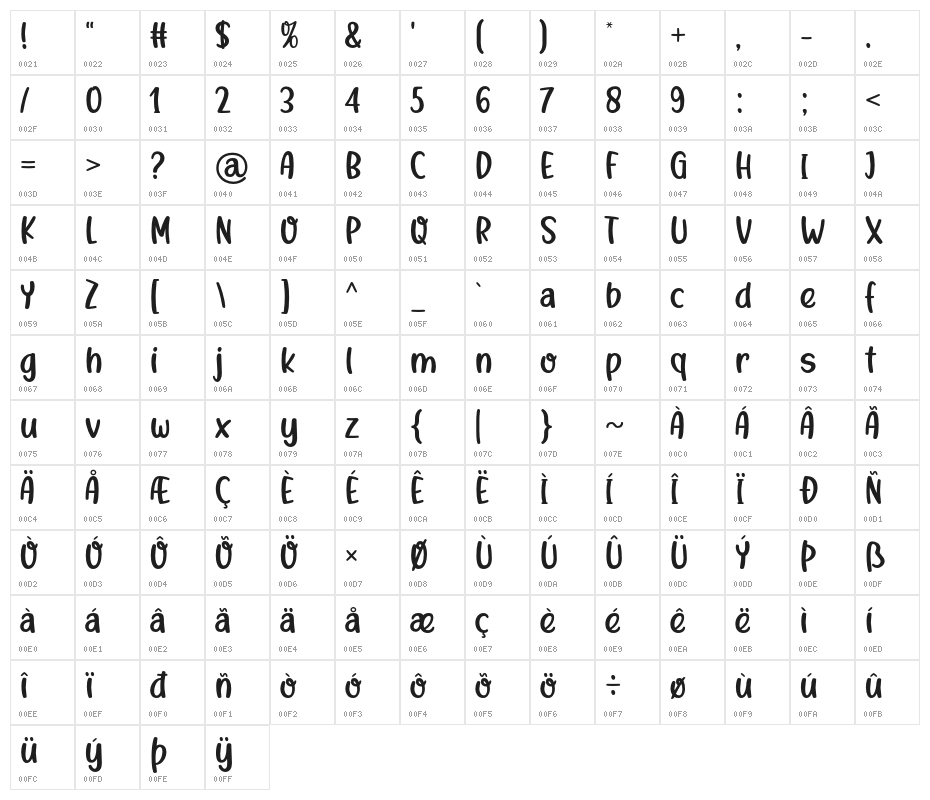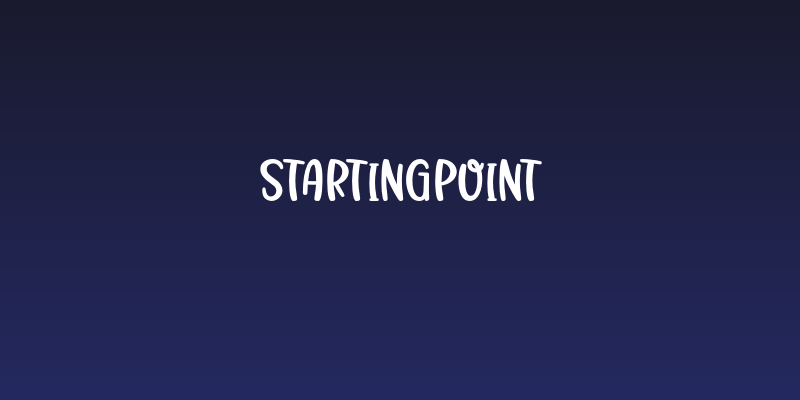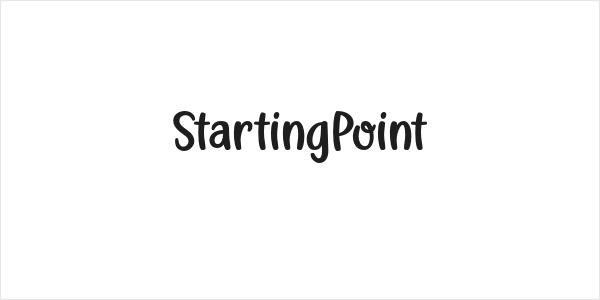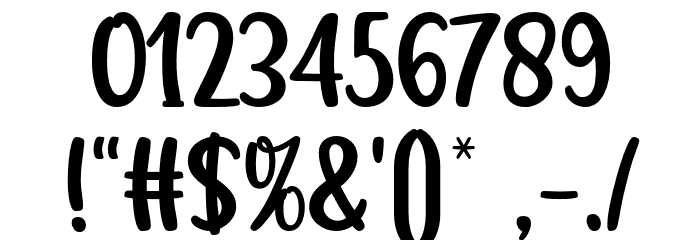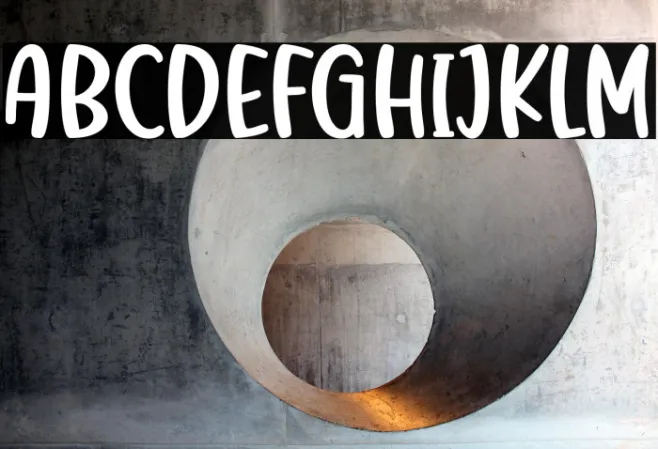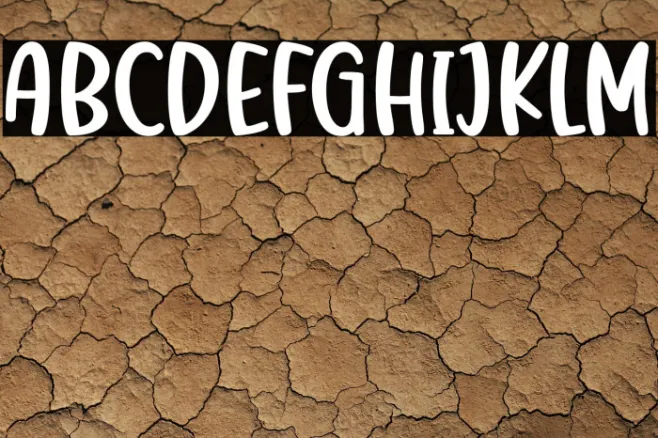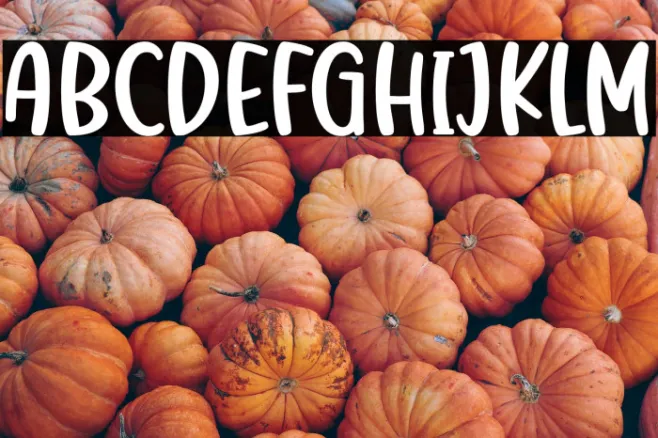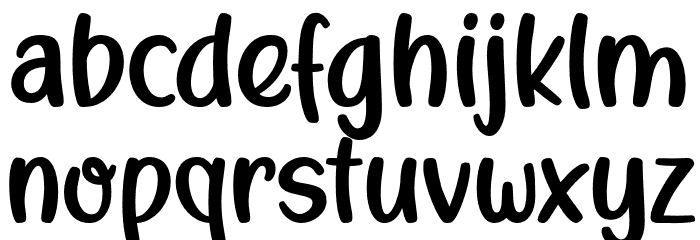
StartingPoint Font
StartingPoint Description
This font features a playful and casual handwritten style, characterized by its smooth curves and rounded edges. The letters are bold and slightly condensed, giving them a friendly and approachable appearance. The uppercase and lowercase letters maintain a consistent style, with a slight slant that adds to the informal feel. The numbers and special characters are designed to match the overall aesthetic, ensuring a cohesive look across all text. This font is ideal for projects that require a personal touch, such as greeting cards, invitations, or social media graphics.
| Proposed Projects | Ideal for greeting cards, invitations, social media graphics, and playful branding. |